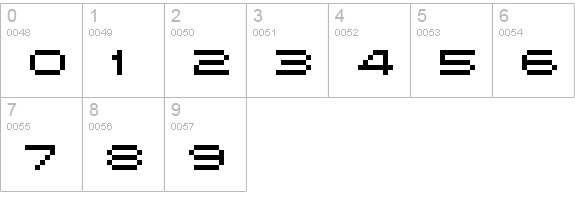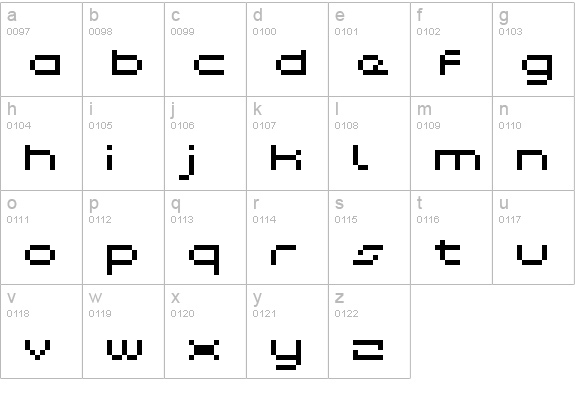
Grixel Kyrou 5 Wide is a distinctive, extended-width variant in the Grixel typeface family \xE2\x80\x94 well suited to design and typography projects.
Grixel Kyrou 5 Wide font is a versatile and modern typeface that exudes a sense of sophistication and elegance. Its sleek, clean lines and wide letterforms make it perfect for a variety of design projects, from branding to editorial layouts. The bold and distinctive look of Grixel Kyrou 5 Wide font commands attention and adds a touch of contemporary flair to any design. The best part? Grixel Kyrou 5 Wide font is available for free download at FontsMarket.com! This means you can easily add this stylish font to your collection without breaking the bank. Whether you're a seasoned designer looking to refresh your font library or a beginner searching for the perfect typeface for your next project, Grixel Kyrou 5 Wide font is sure to impress with its unique aesthetic and versatility. Don't miss out on the opportunity to enhance your designs with the eye-catching Grixel Kyrou 5 Wide font – download it for free today at FontsMarket.com and take your projects to the next level!